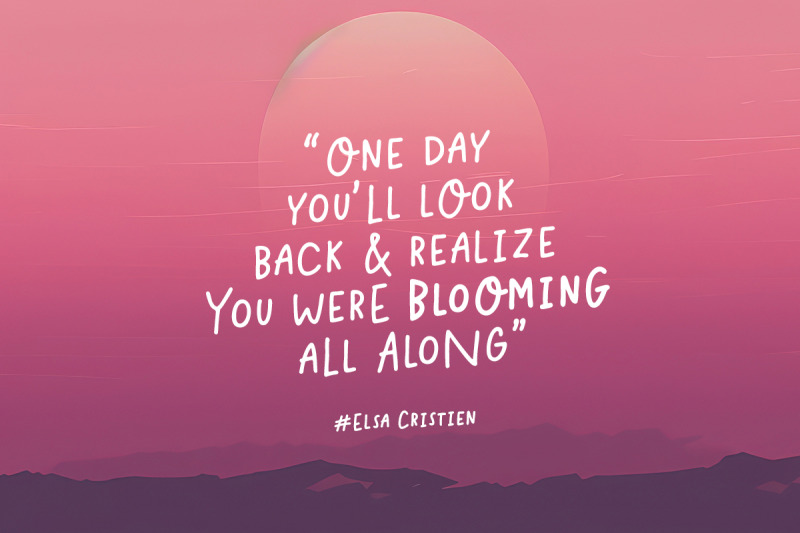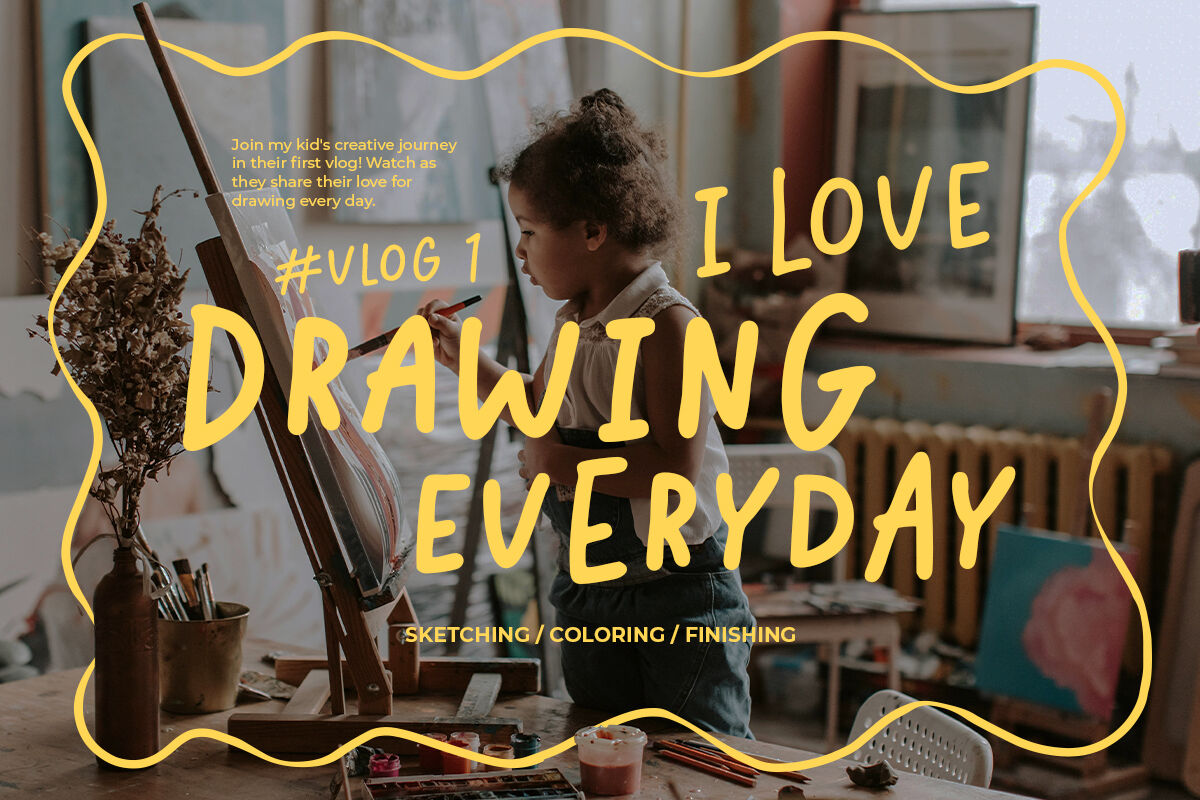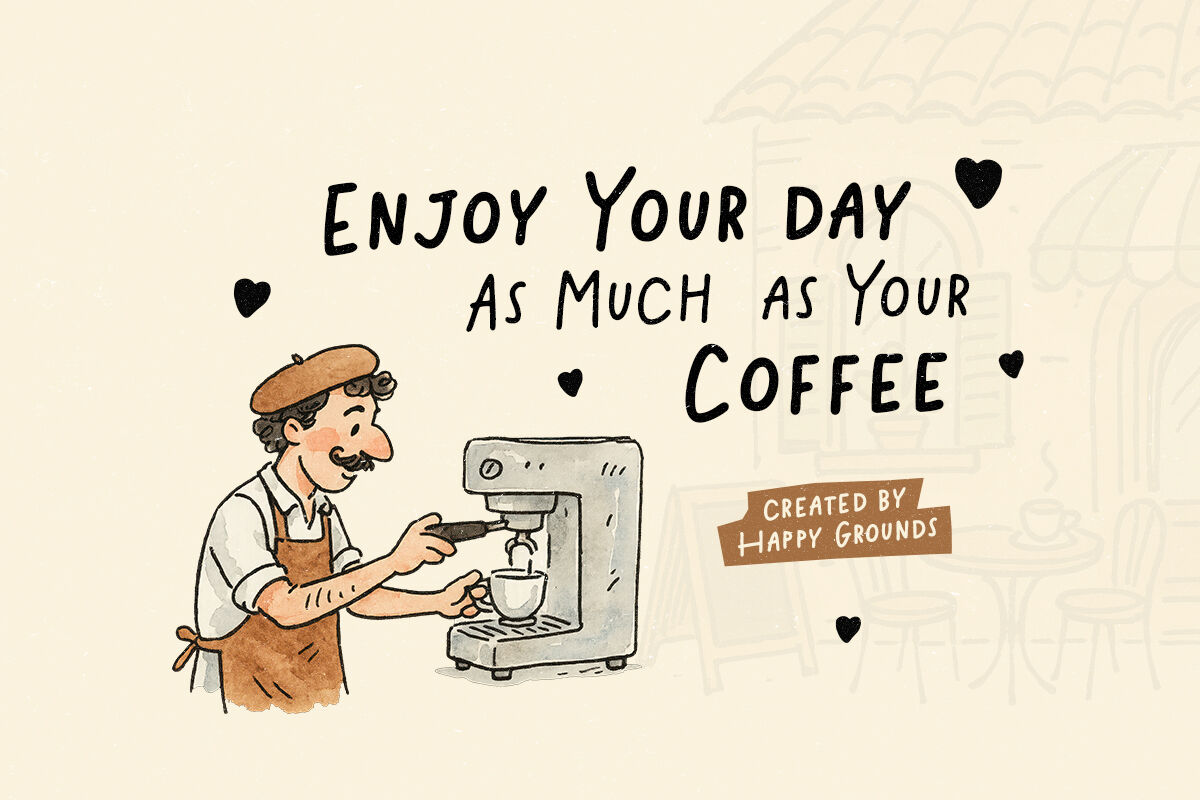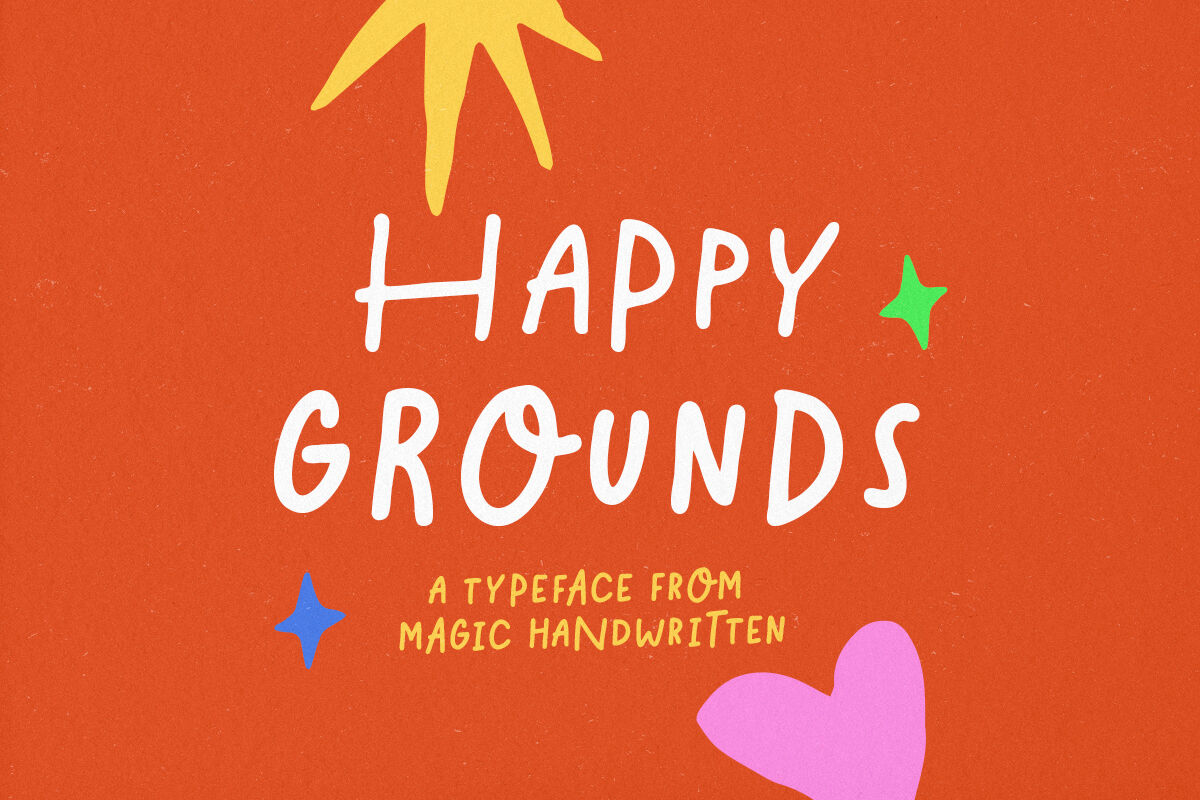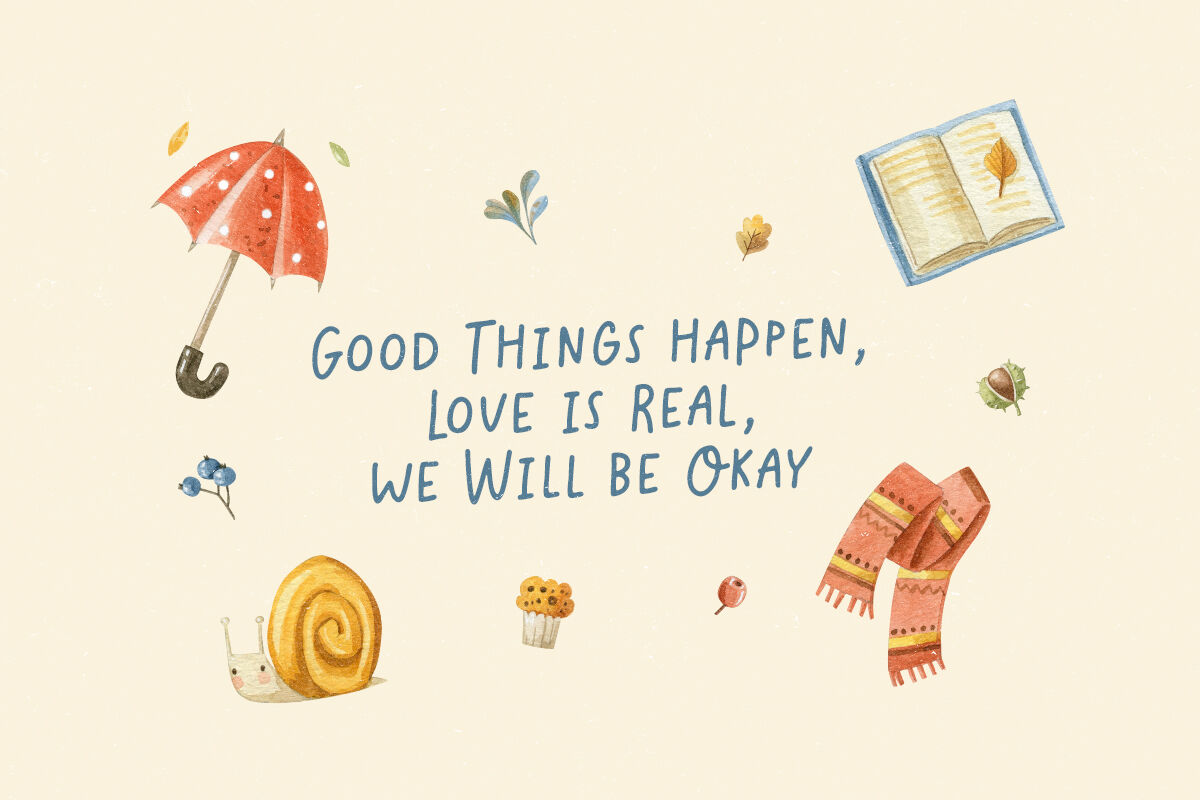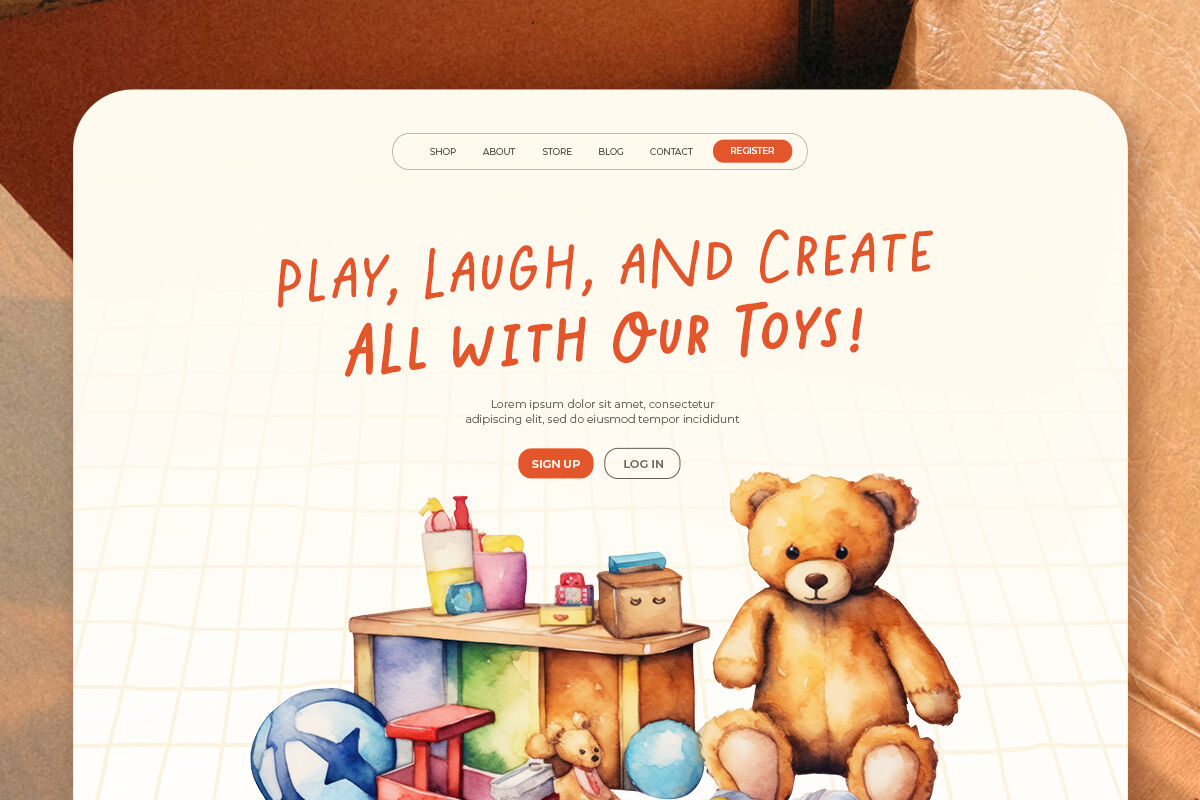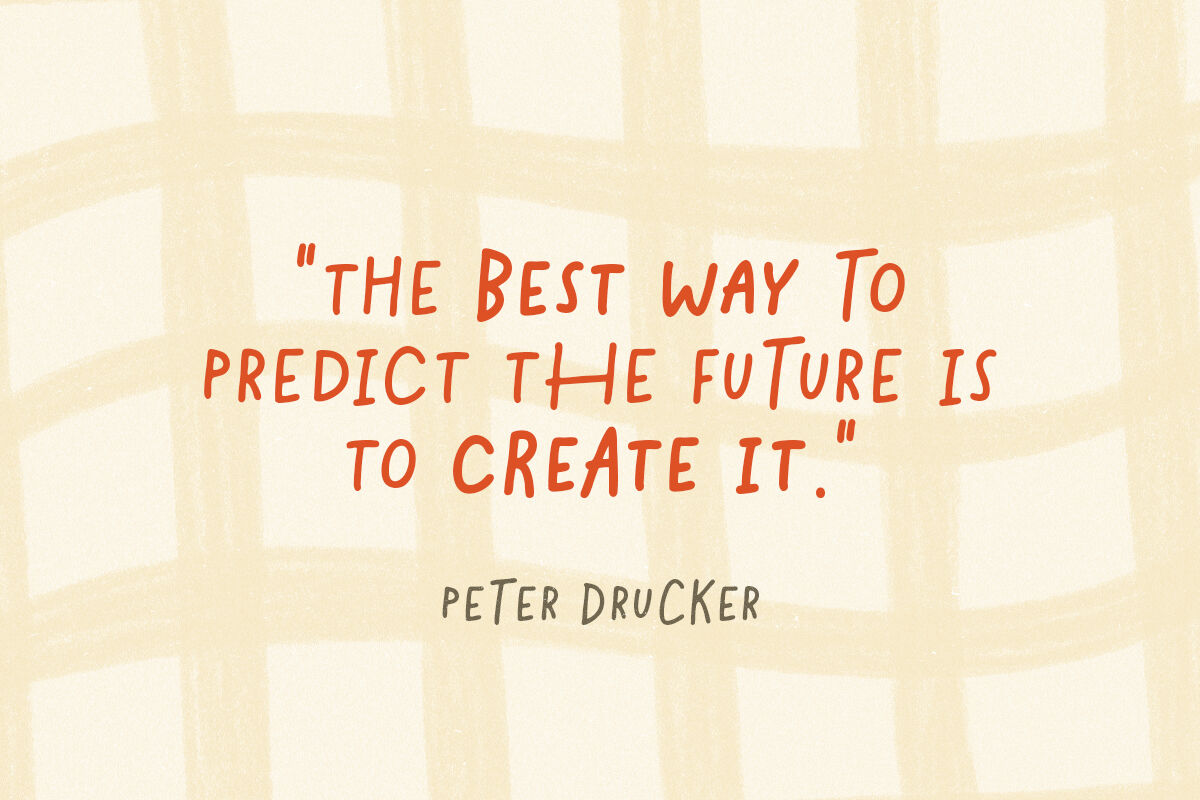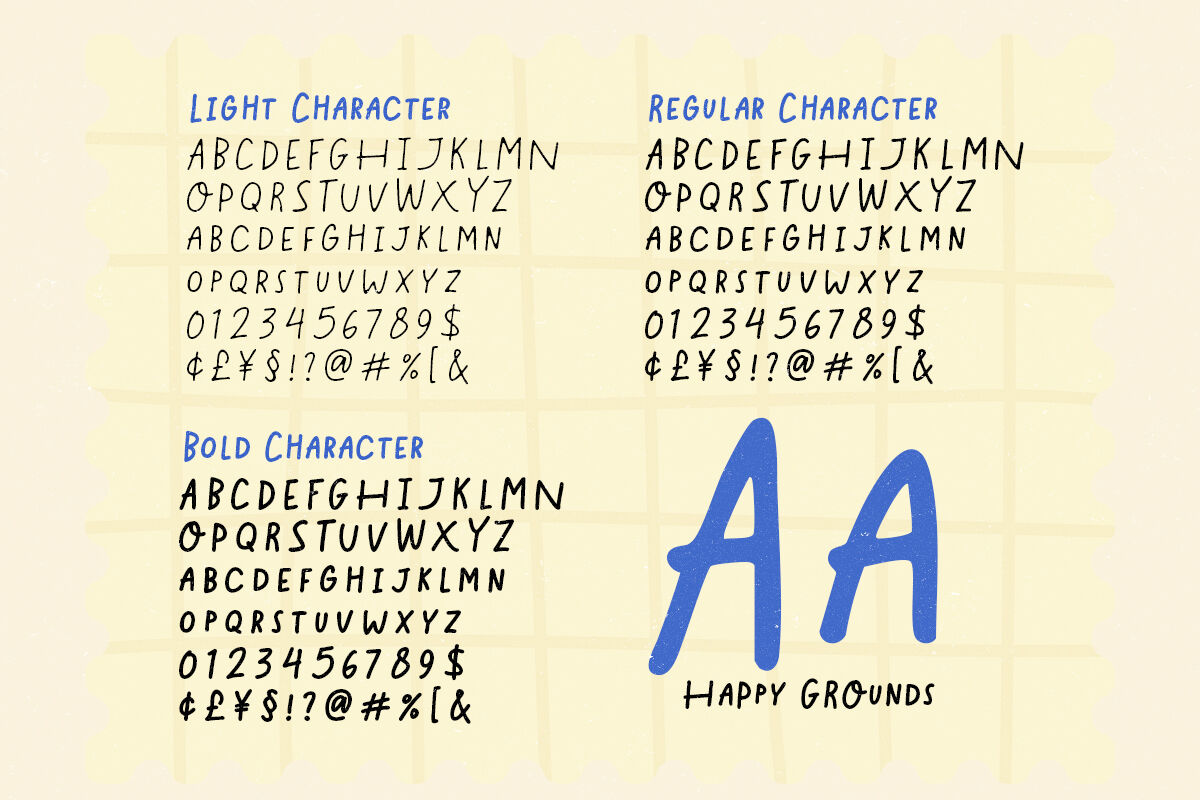
Happy Grounds - Quote Font
Happy Grounds is a simple handwritten font that have fun and smooth form. This font is suitable for any purposes such as branding, children book, especially for cute quote. With all caps of this font, you can use the uppercase and lowercase separated or combining both to give more personality to your project. Happy Grounds come with three styles, Light, Regular and Bold with multi lingual support each style!